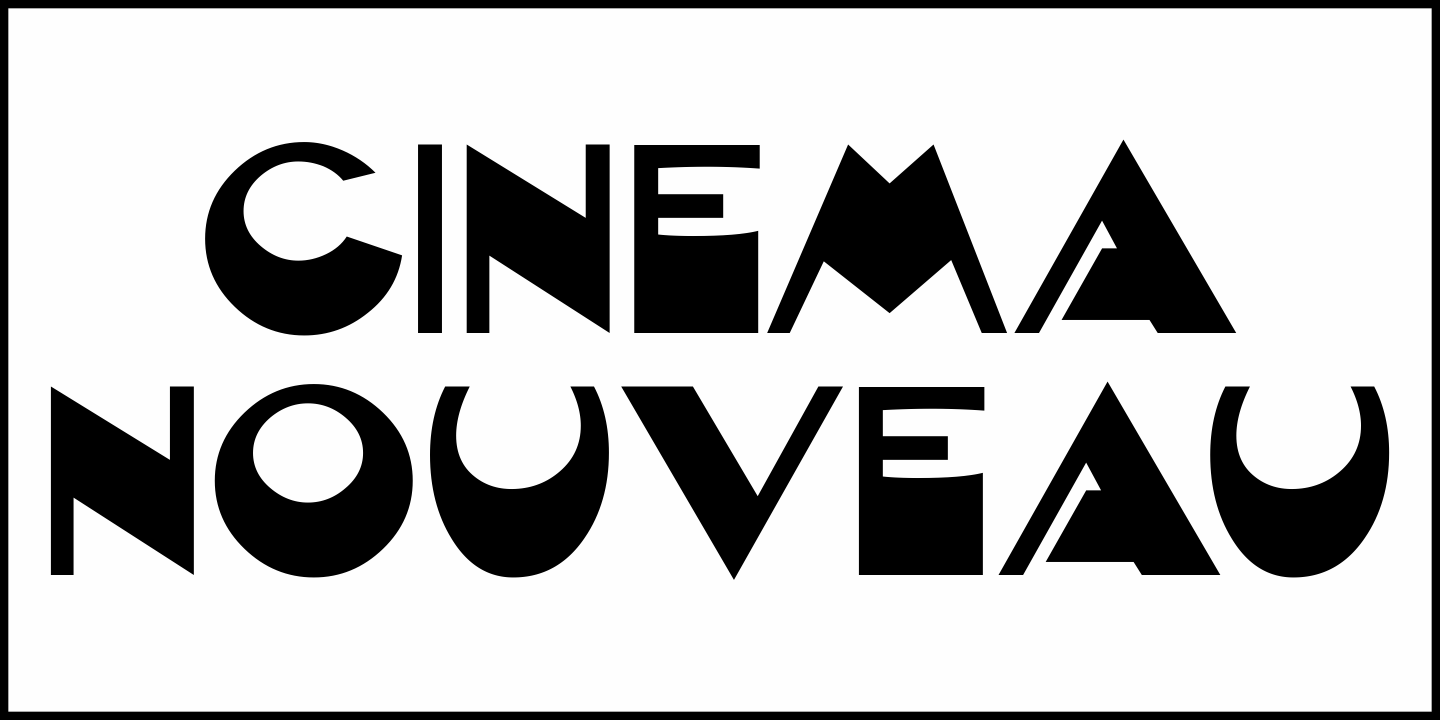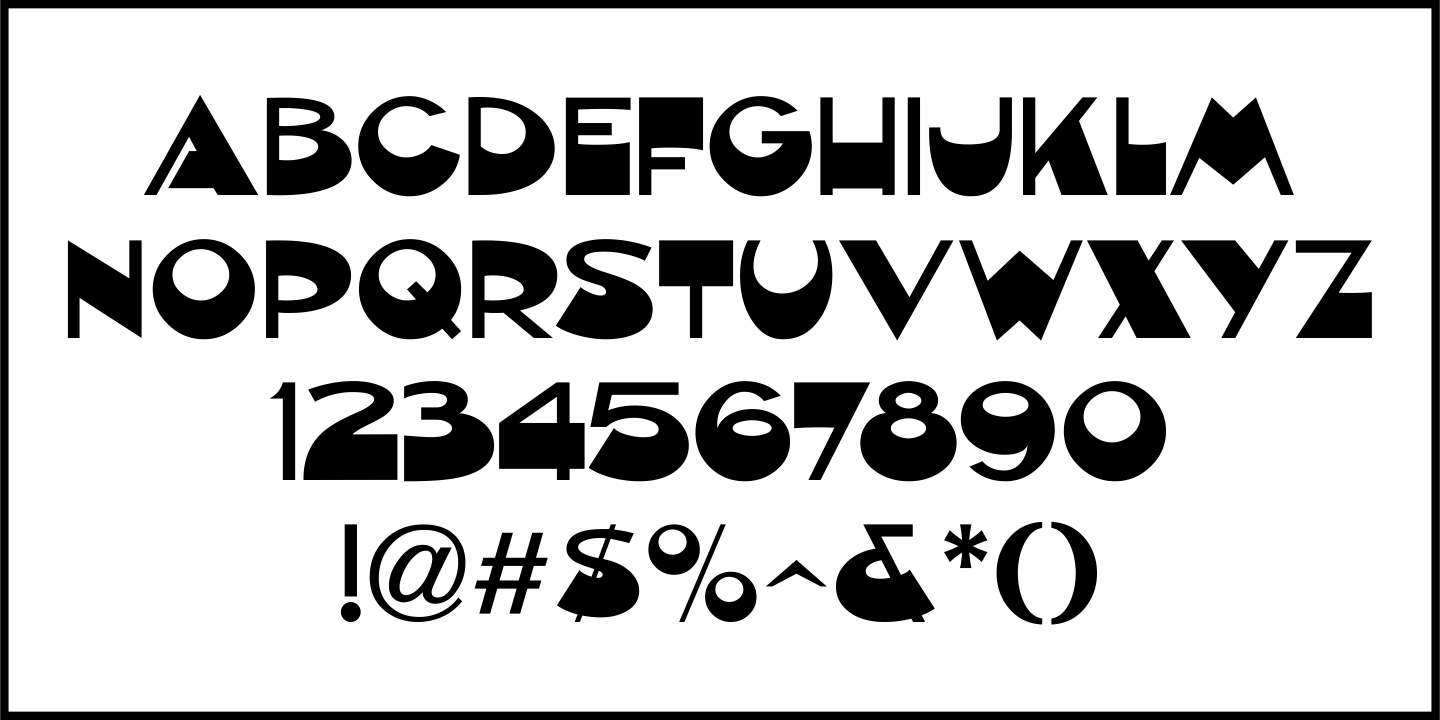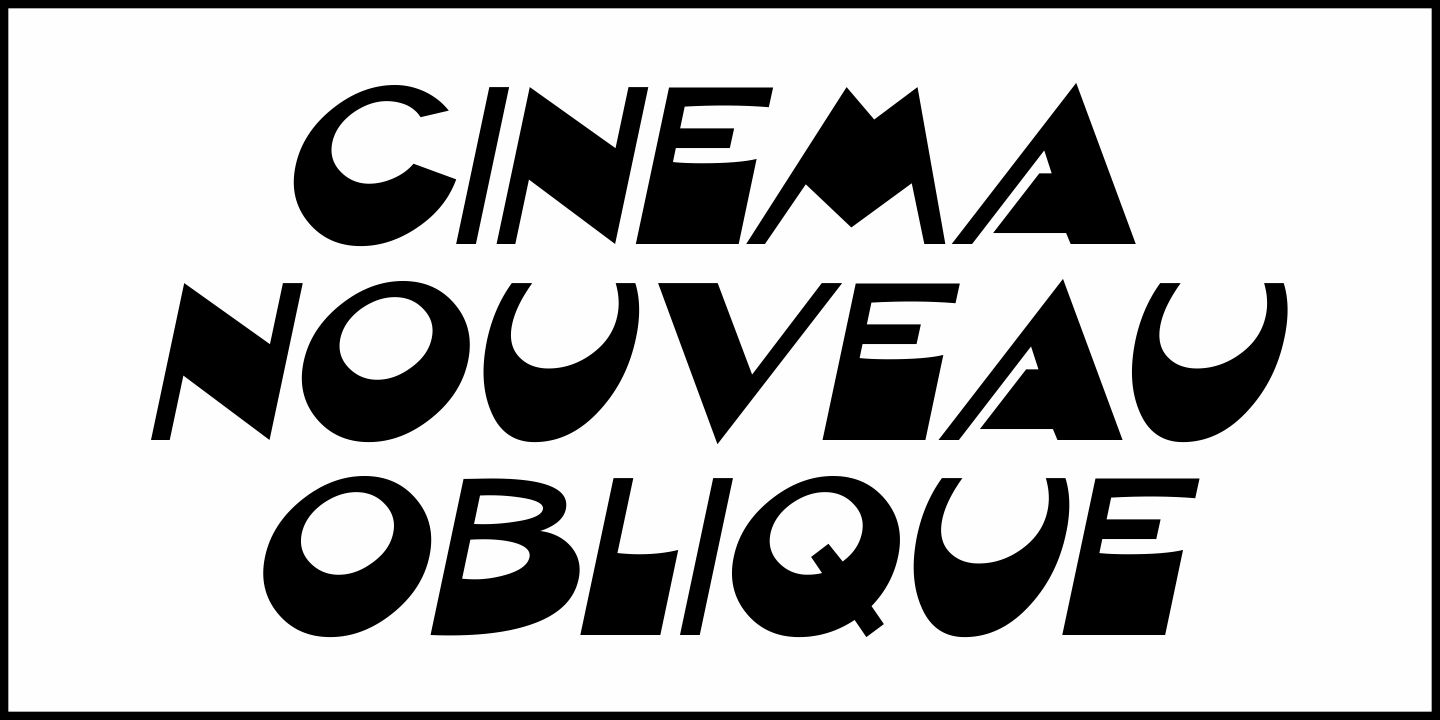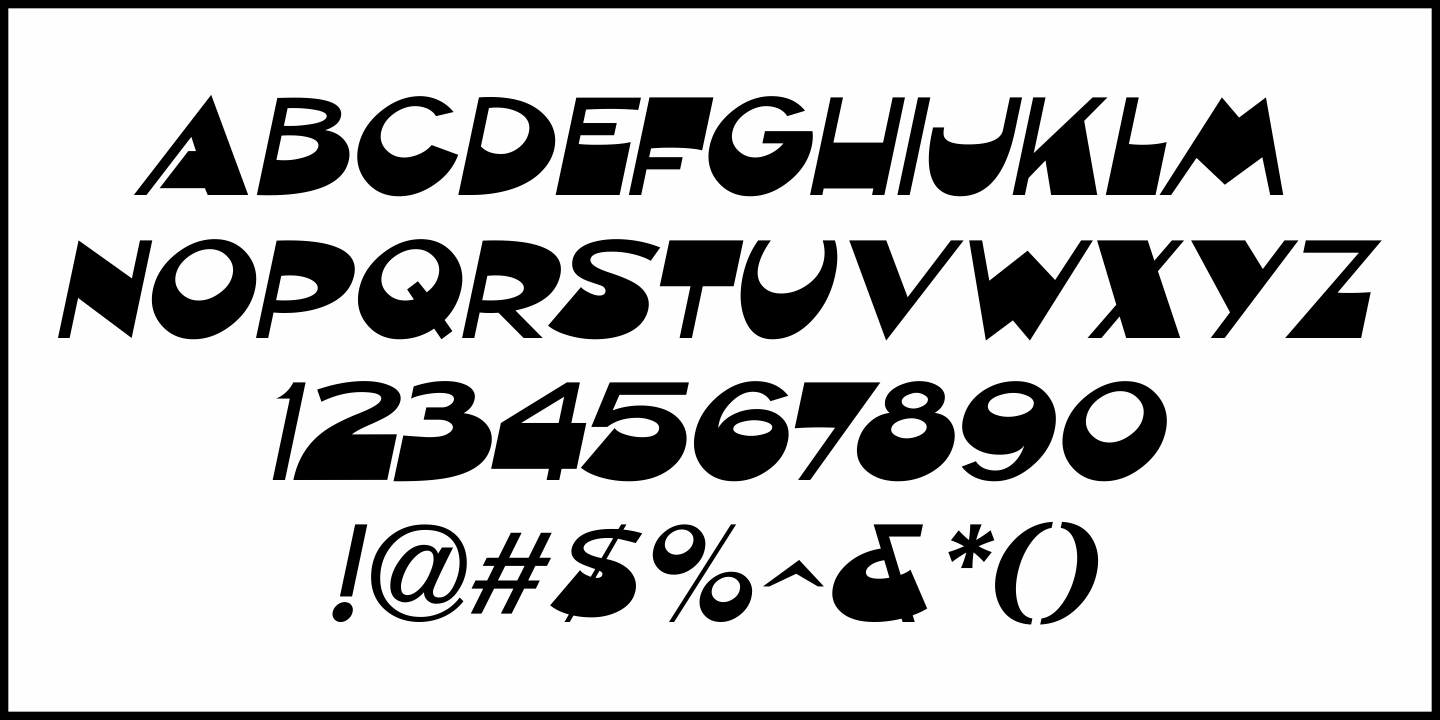
Cinema Nouveau
Shadowland was a magazine dedicated to the arts, and was published from 1919 through 1923. The lettering for its masthead was hand lettered in a then-contemporary Art Nouveau style.
Although the photoplay (movies) was just an incremental part of the magazine's overview of the arts, the digital version of the type design has been named Cinema Nouveau JNL, and is available in both regular and oblique versions.